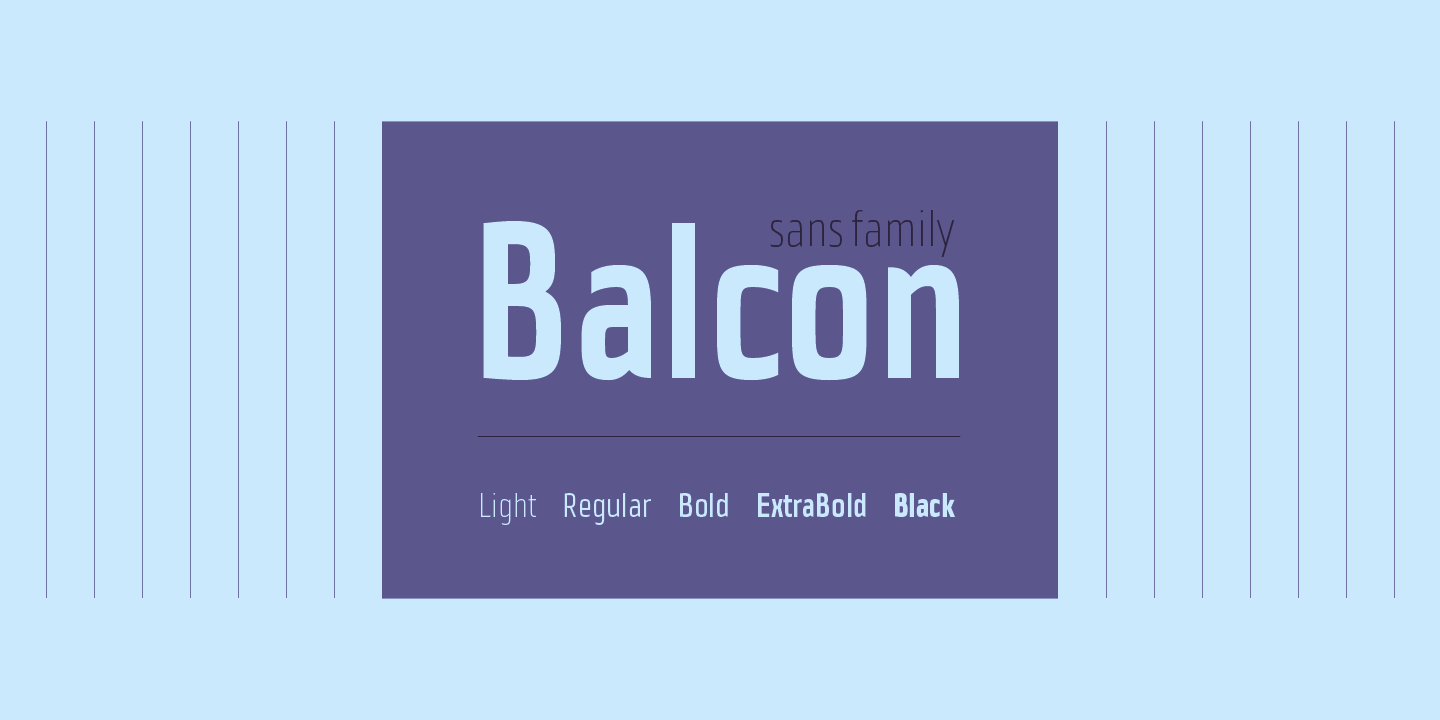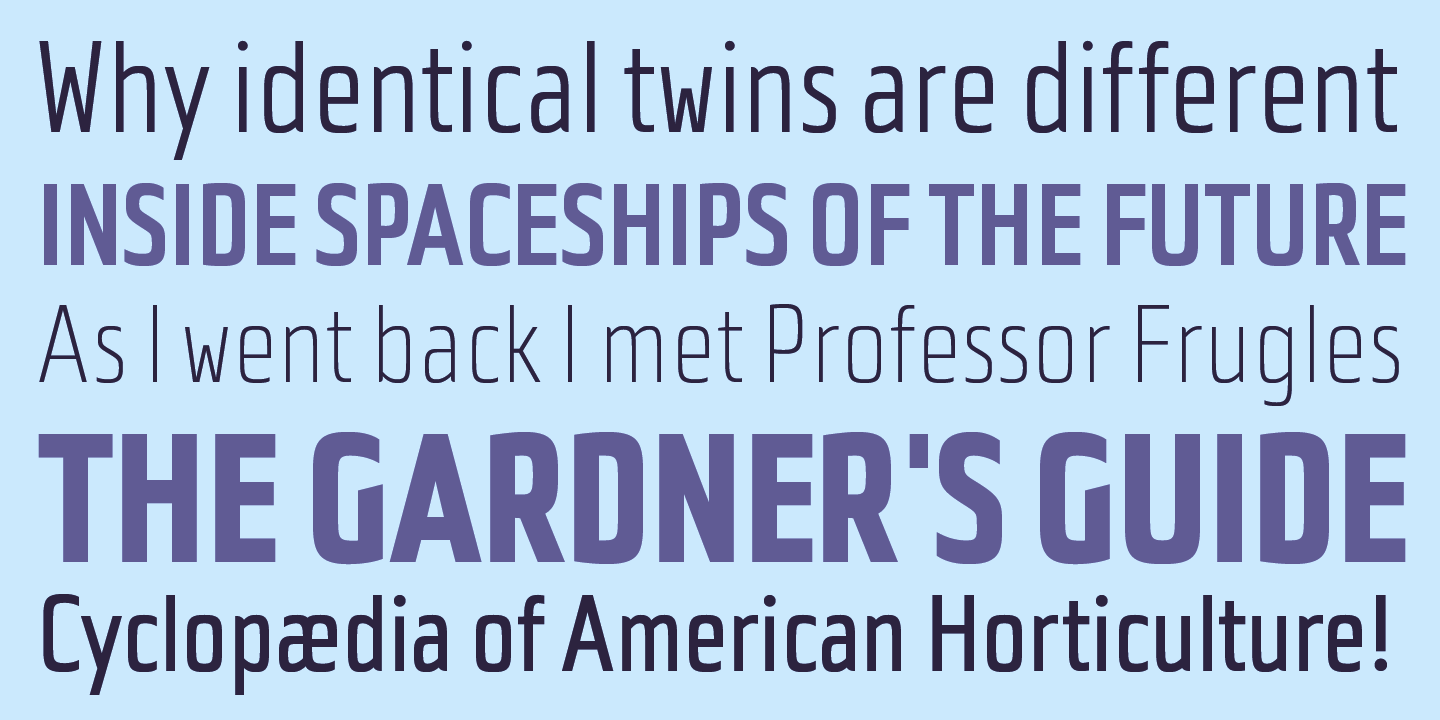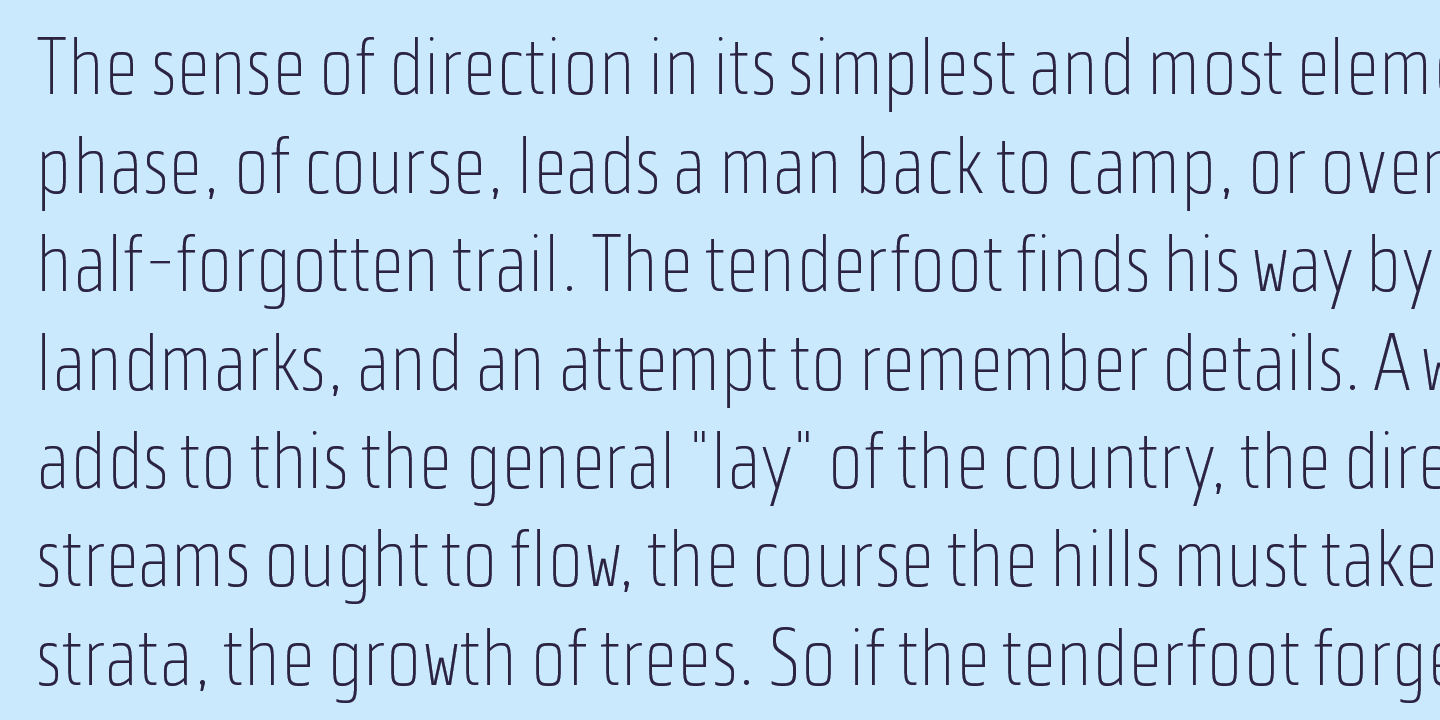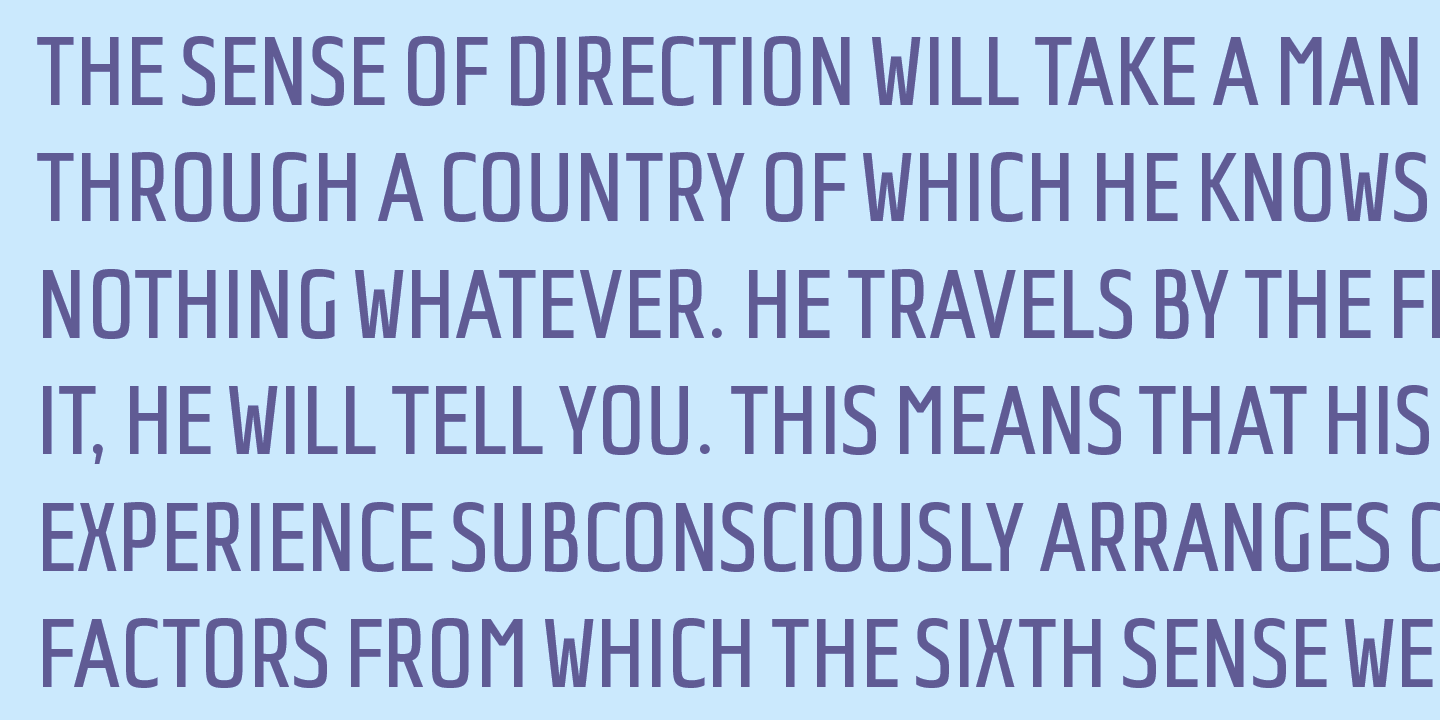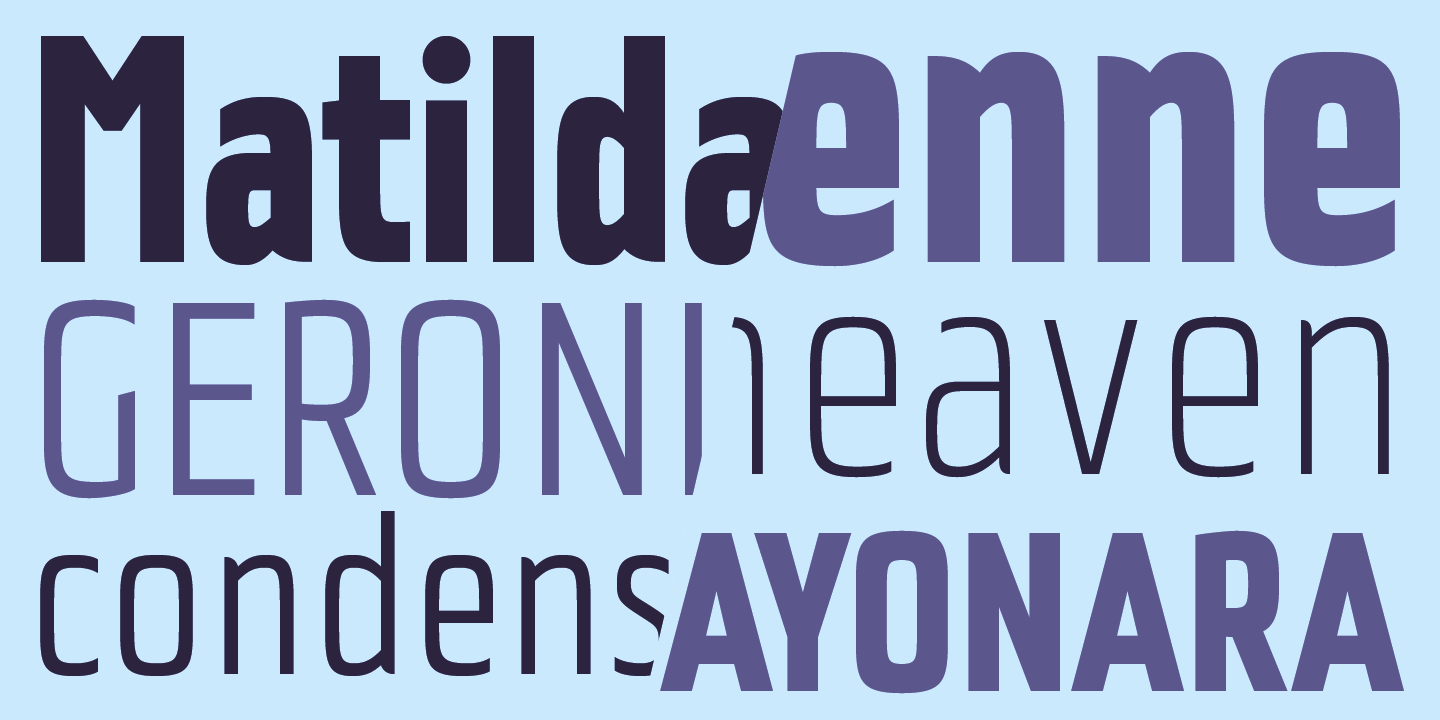
Balcon is condensed sans family designed to be your first web font choice. Contains 5 weights: Light, Regular, Bold, ExtraBold and Black, it fits perfect into any project, from editorial editions to packages, labels, posters. If you're looking for a bit decorative version of this family, feel free to check Balcon Round sans family.